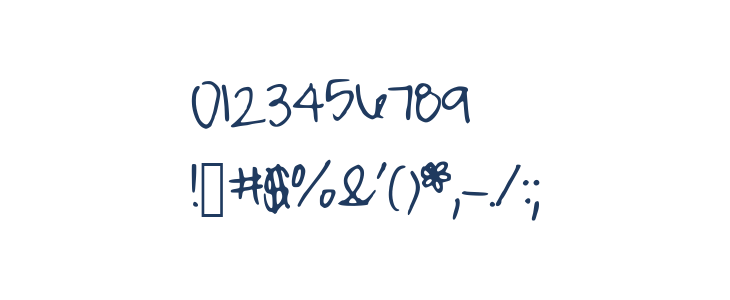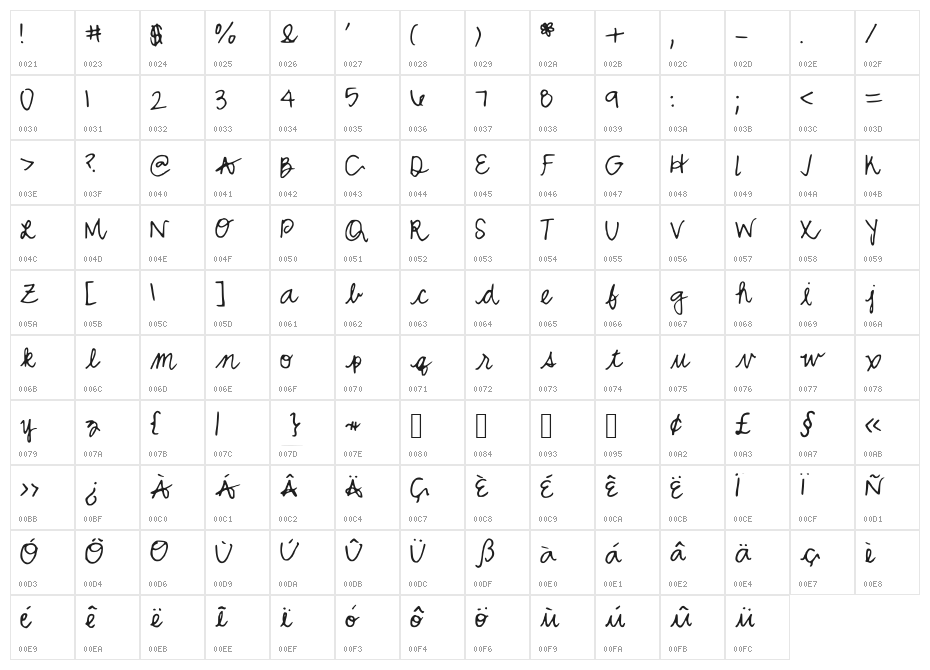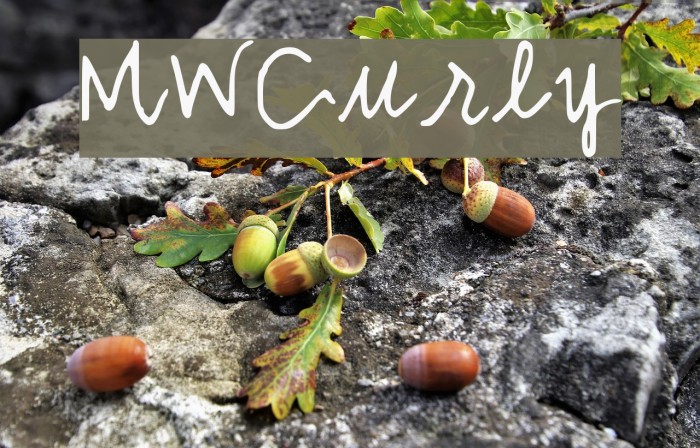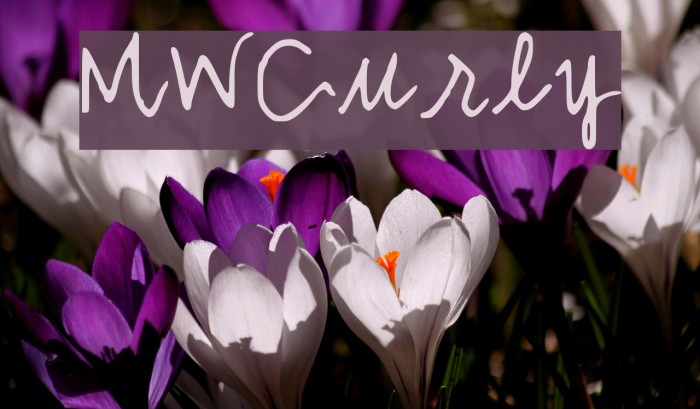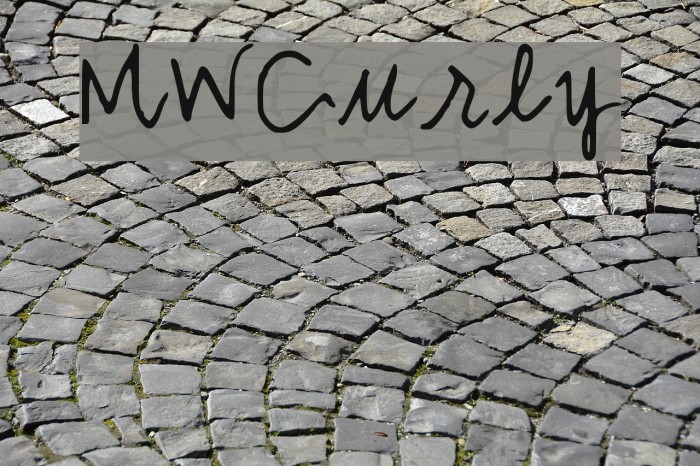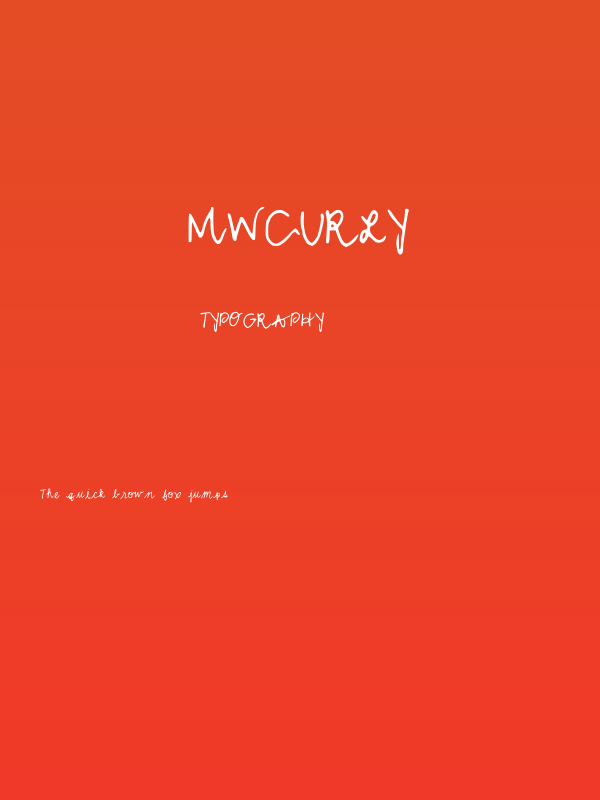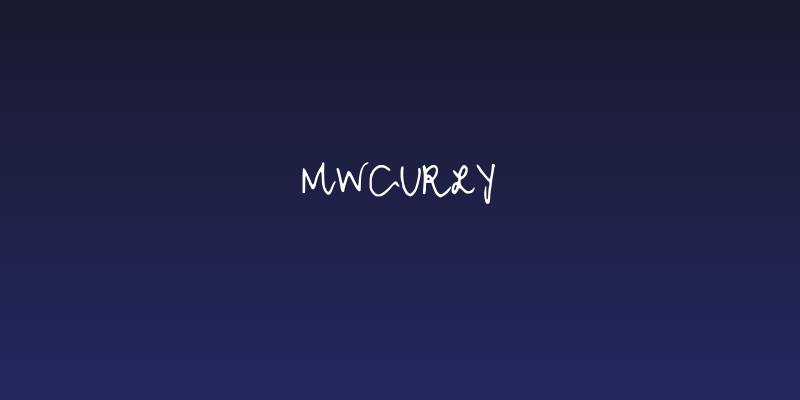
MWCurly Font
MWCurly Description
This font features a playful and whimsical handwritten style, characterized by its curly and flowing letterforms. The uppercase letters maintain a consistent height, while the lowercase letters exhibit a charming irregularity, adding to its casual appeal. The numerals are distinct and easy to read, complementing the overall style. Special characters are creatively designed, maintaining the font's unique personality. This font's informal and friendly appearance makes it suitable for projects that require a personal touch.
| Use Case | Headlines, Invitations, Personal projects |
| Proposed Projects | Ideal for greeting cards, children's books, personal blogs, and creative branding projects. |